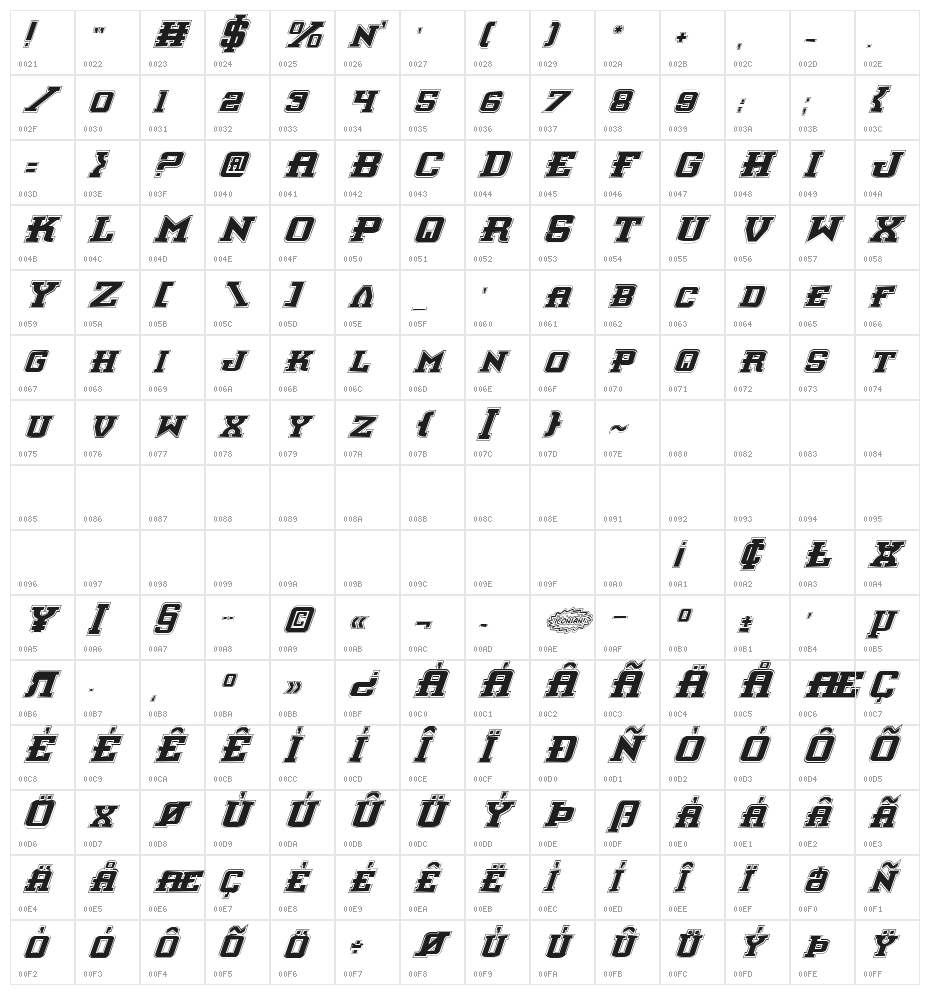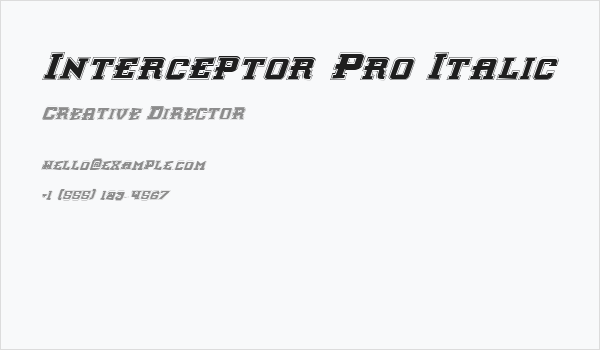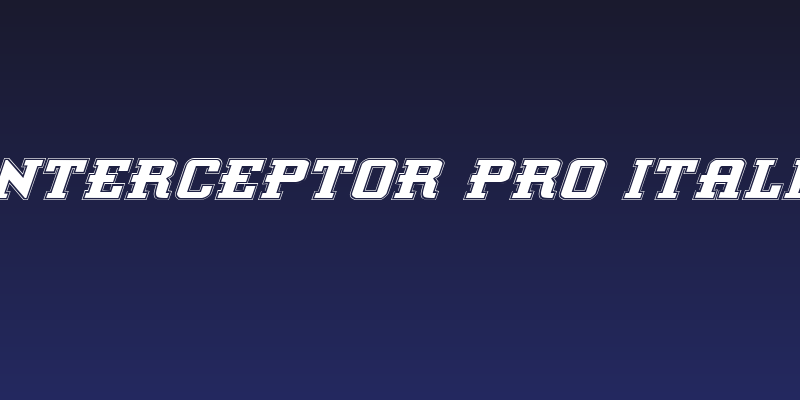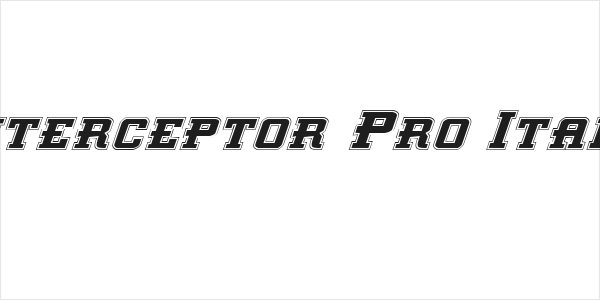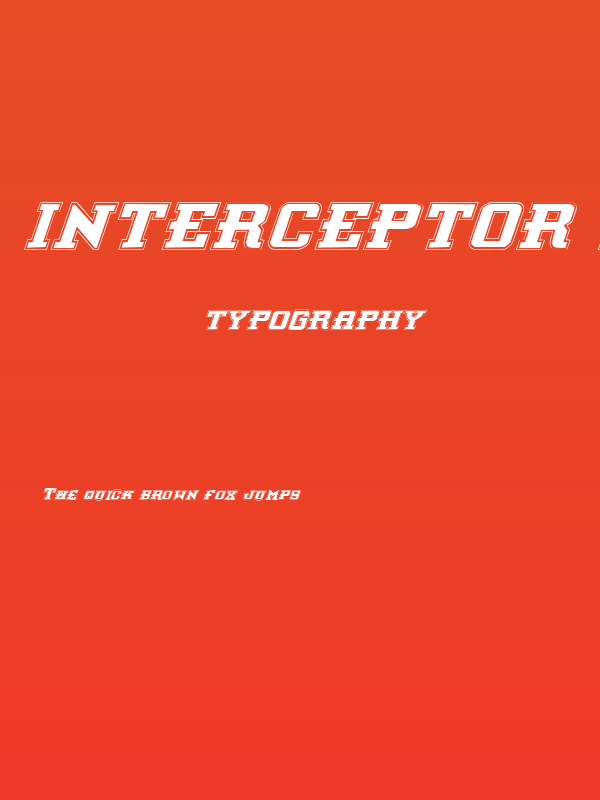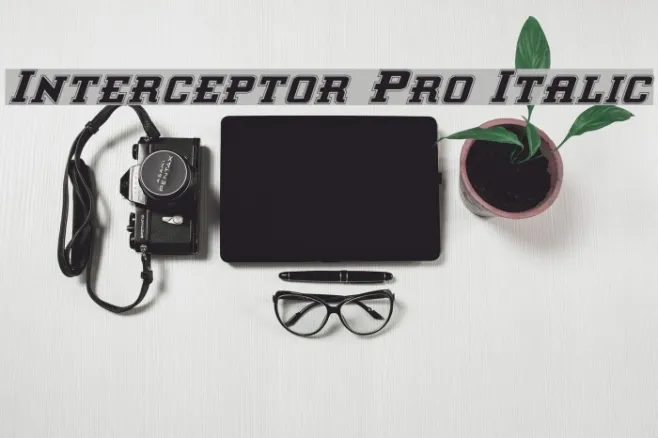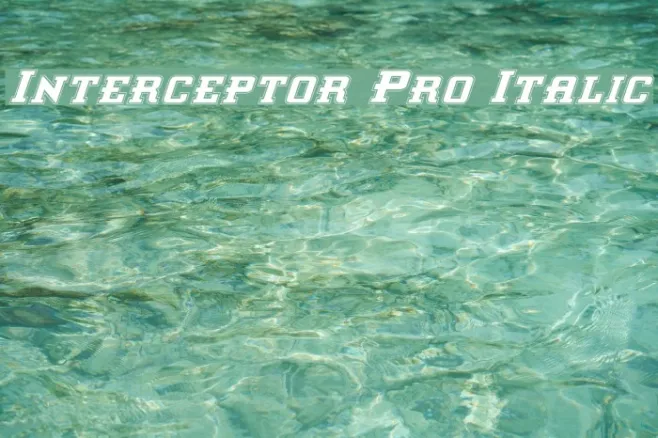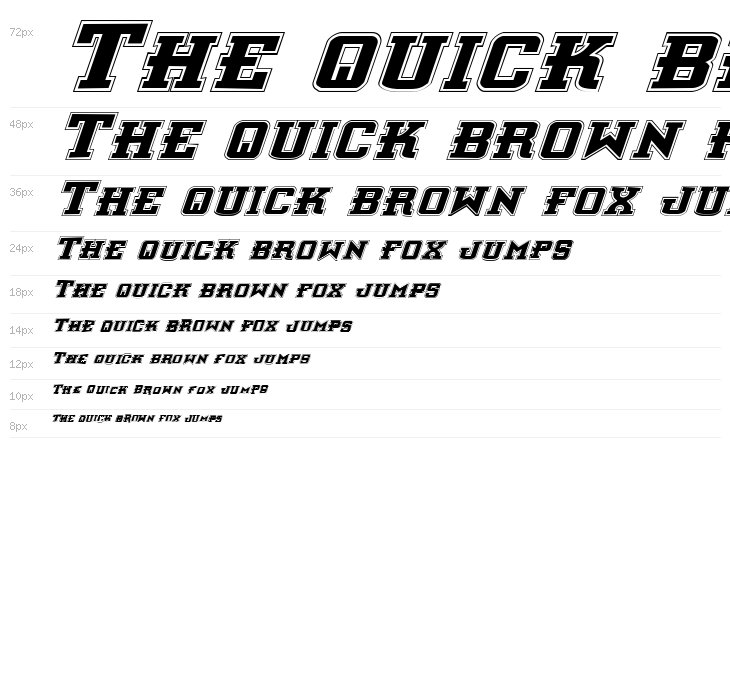
Interceptor Pro Italic Font
Interceptor Pro Italic Description
This font features a bold, italicized style with a strong, dynamic presence. The characters are outlined with a double-layer effect, giving them a three-dimensional appearance. The uppercase letters are angular and robust, while the lowercase letters maintain a consistent style, ensuring readability. The numbers and special characters follow the same design principles, providing a cohesive look across all glyphs. The font's boldness and italic slant make it suitable for attention-grabbing headlines and impactful designs.
| Proposed Projects | Ideal for sports branding, dynamic posters, and eye-catching headlines. |